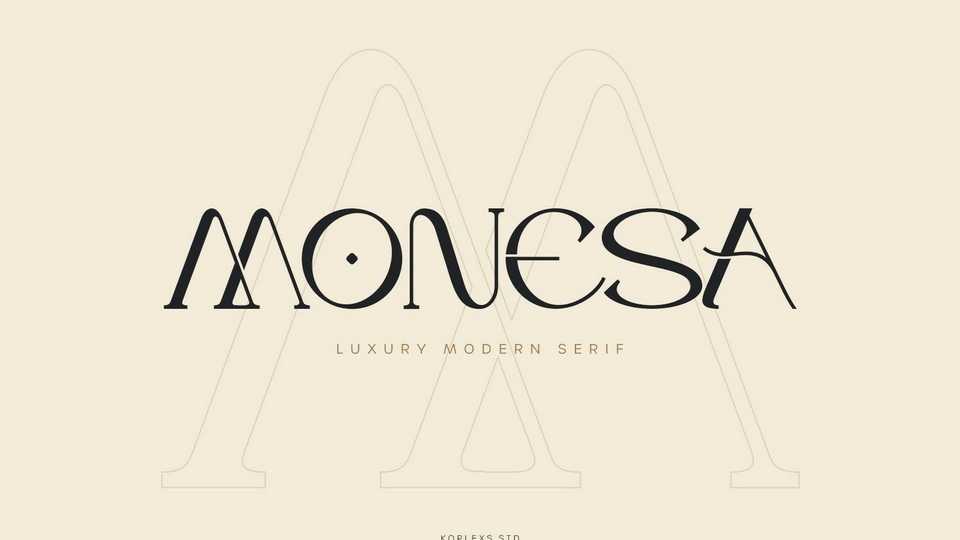
Download Monesa font, a luxury modern serif typeface created special for project needs, with extra unique shape and ligatures that will add your brand value.
Designer: Koplexs Studio